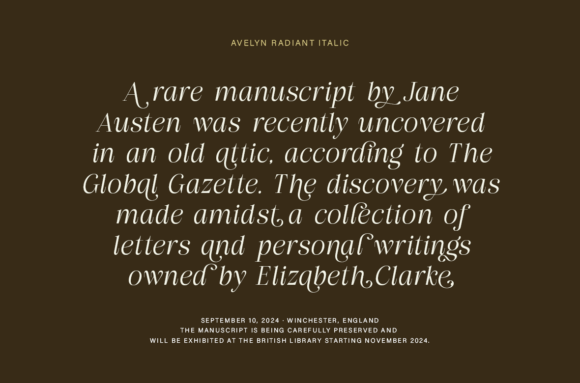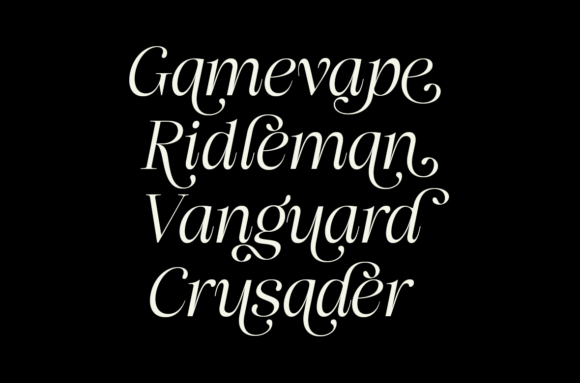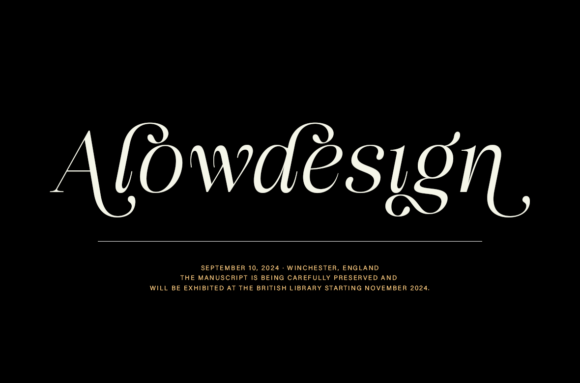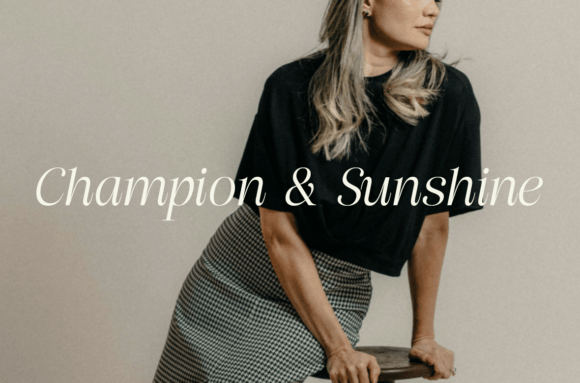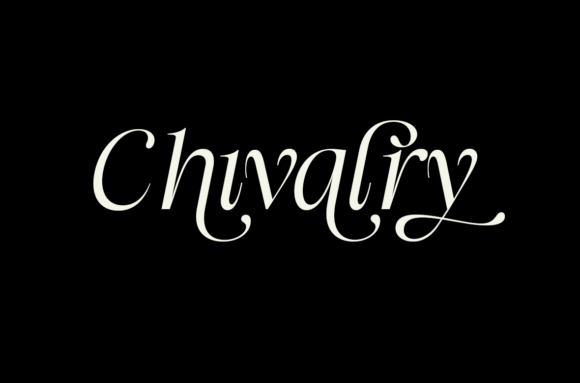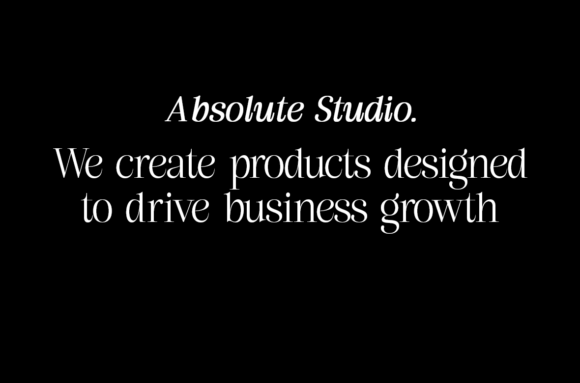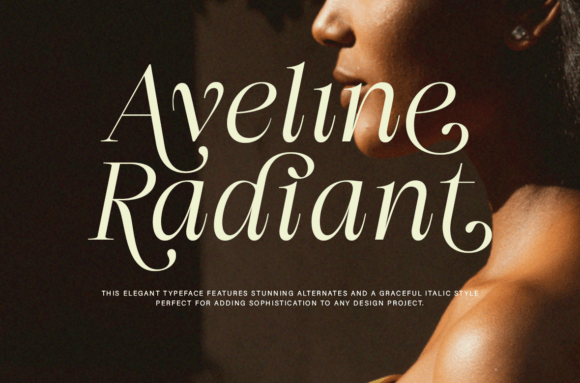
Aveline Radiant Font: Elevate Your Designs with Timeless Elegance
In the world of typography, a font can make or break the aesthetic of a design project. For designers and crafters seeking to add a touch of luxury and sophistication to their work, Aveline Radiant is a game-changing serif typeface that embodies refined elegance and timeless beauty. In this article, we’ll explore the features and benefits of Aveline Radiant, and why it’s the perfect choice for creative projects that demand high-end style.
The Essence of Aveline Radiant
Aveline Radiant is a luxurious serif typeface designed to elevate your creative projects with a sense of sophistication and refinement. Its classic design, coupled with modern flair, makes it an ideal choice for designers who seek both beauty and versatility in their typography. Whether you’re working on branding, editorial layouts, wedding invitations, or premium visual identities, Aveline Radiant brings a touch of elegance that is sure to leave a lasting impression.
Stunning Stylistic Alternates and Italic Curves
One of the standout features of Aveline Radiant is its stunning stylistic alternates and graceful italic curves. These design elements allow for a high degree of flexibility and creativity, enabling designers to experiment with different looks and feels to find the perfect fit for their project. The stylistic alternates provide a range of options for customizing the font, while the italic curves add a touch of fluidity and movement to the text.
Perfect for Designers Seeking Beauty and Versatility
Aveline Radiant is designed with the discerning designer in mind. Its versatility makes it suitable for a wide range of applications, from high-end branding and editorial design to wedding invitations and luxury packaging. The font’s elegant design and range of stylistic alternates ensure that it can adapt to any design style, from classic and traditional to modern and innovative.
Applications for Aveline Radiant
The possibilities for using Aveline Radiant are endless. Here are just a few examples of how this luxurious serif typeface can elevate your design projects:
- Branding: Create a lasting impression with Aveline Radiant’s elegant and sophisticated design, perfect for luxury brands and high-end products.
- Editorial Layouts: Add a touch of refinement to your editorial designs, such as magazines, newspapers, and books, with Aveline Radiant’s classic yet modern aesthetic.
- Wedding Invitations: Make your wedding invitations truly special with Aveline Radiant’s beautiful and elegant design, perfect for formal and luxury weddings.
- Premium Visual Identities: Elevate your visual identity with Aveline Radiant’s sophisticated and refined design, suitable for high-end businesses and luxury brands.
Why Choose Aveline Radiant?
With so many fonts available, why choose Aveline Radiant? Here are just a few reasons why this luxurious serif typeface stands out from the rest:
- Timeless Beauty: Aveline Radiant’s classic design ensures that it will remain timeless and elegant for years to come.
- Refined Elegance: The font’s sophisticated design makes it perfect for high-end branding, editorial design, and luxury packaging.
- Versatility: Aveline Radiant’s range of stylistic alternates and italic curves provide endless possibilities for customization and creativity.
| Author | InkwellTypeCo |
In conclusion, Aveline Radiant is a luxurious serif typeface that embodies refined elegance and timeless beauty. Its stunning stylistic alternates and graceful italic curves make it the perfect choice for designers seeking both beauty and versatility in their typography. Whether you’re working on branding, editorial layouts, wedding invitations, or premium visual identities, Aveline Radiant is sure to elevate your design projects with a touch of sophistication and luxury.